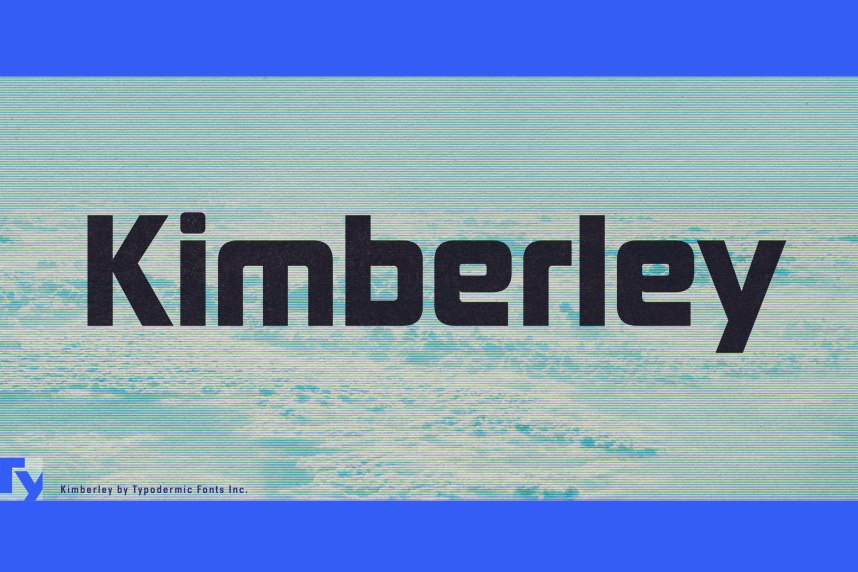
Kimberley Font, which was designed by Larabie and published by Myfonts, belongs to the geometric sans serif typeface family. This font was inspired by several bold, corporate-industrial logotypes from the 1970s, giving it a squared, machine-made aesthetic with sleek angles and a deliberately engineered feel.
First released in 2000, the Kimberley family was later expanded into fourteen styles, featuring seven distinct weights from Hairline to Black each with a matching italic.
| Name | Kimberley Font |
| Designer | MyFonts |
| Type | Geometric Sans Serif |